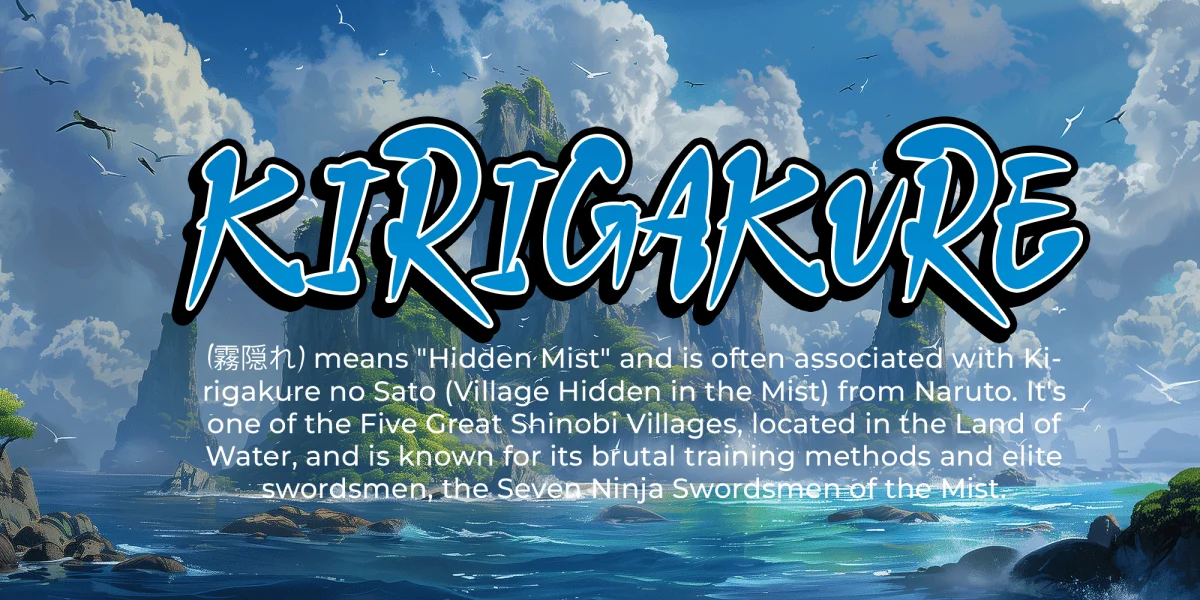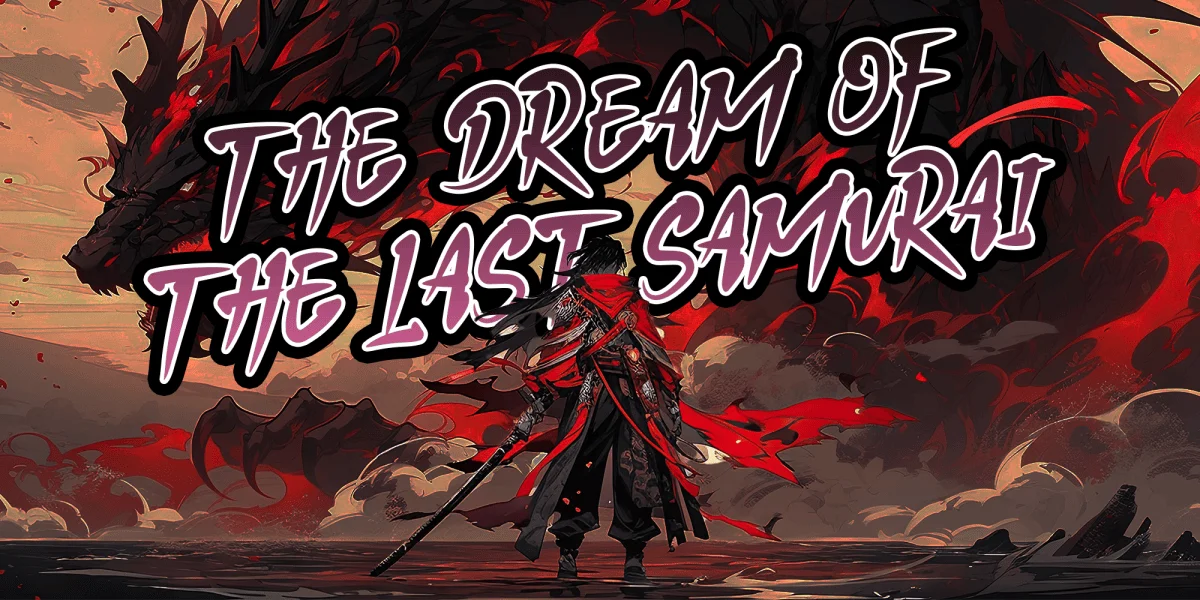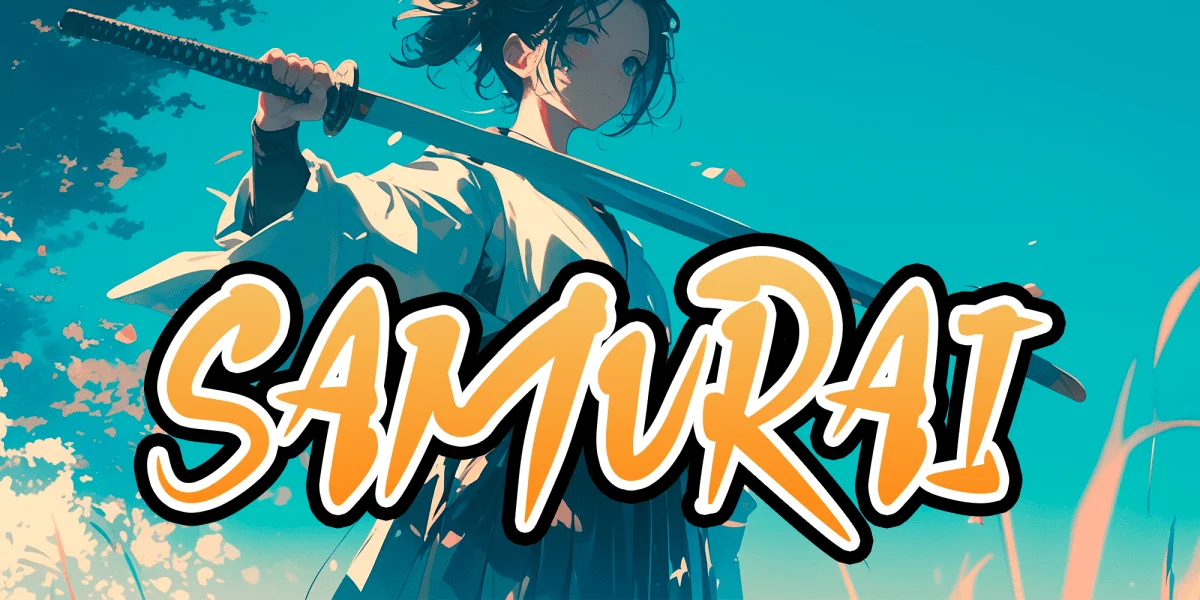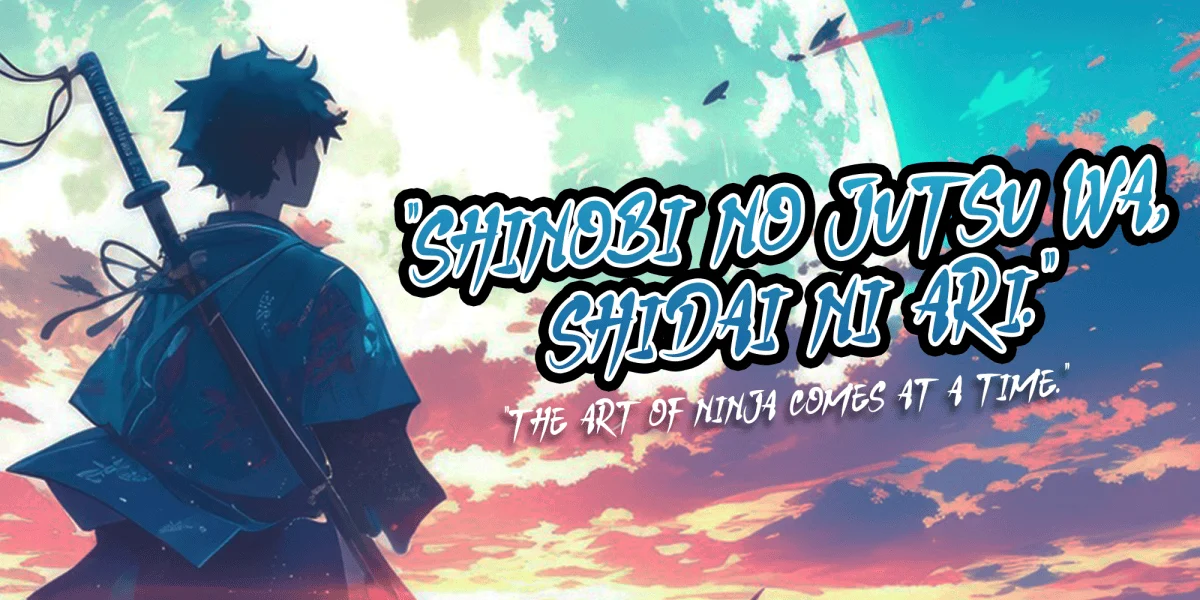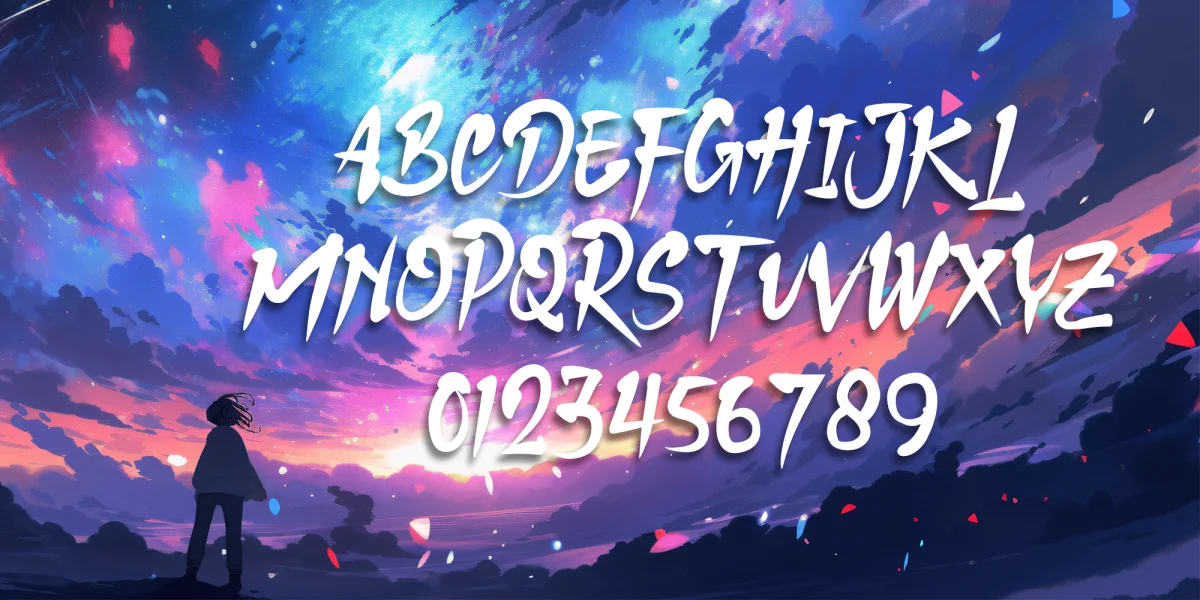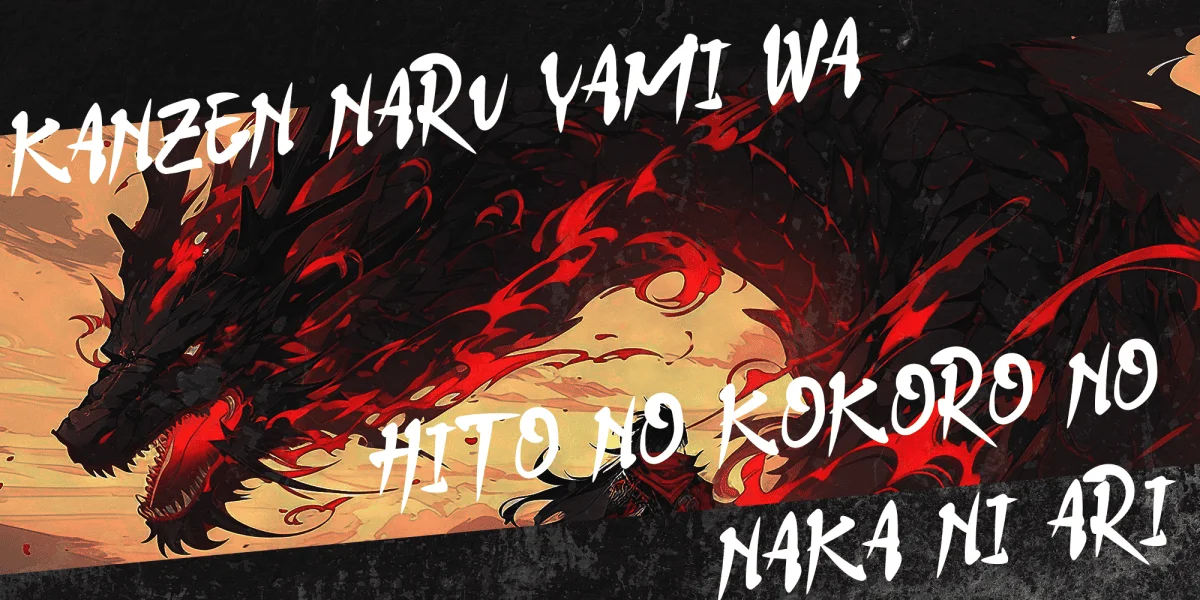
Introducing Haruto,
A brush font inspired by the anime Naruto features a bold, dynamic, and energetic style, reflecting the world of ninjas, action, and strategy. These fonts typically have sharp, expressive brush strokes, resembling Japanese calligraphy or ink splashes, similar to those seen in jutsu techniques and ninja scrolls in the anime.
It contains uppercase, number, punctuation, symbols and support multilingual. Regals Aurumfont is great for branding, business cards, logo, poster, t-shirt, photography, invitations, and more.